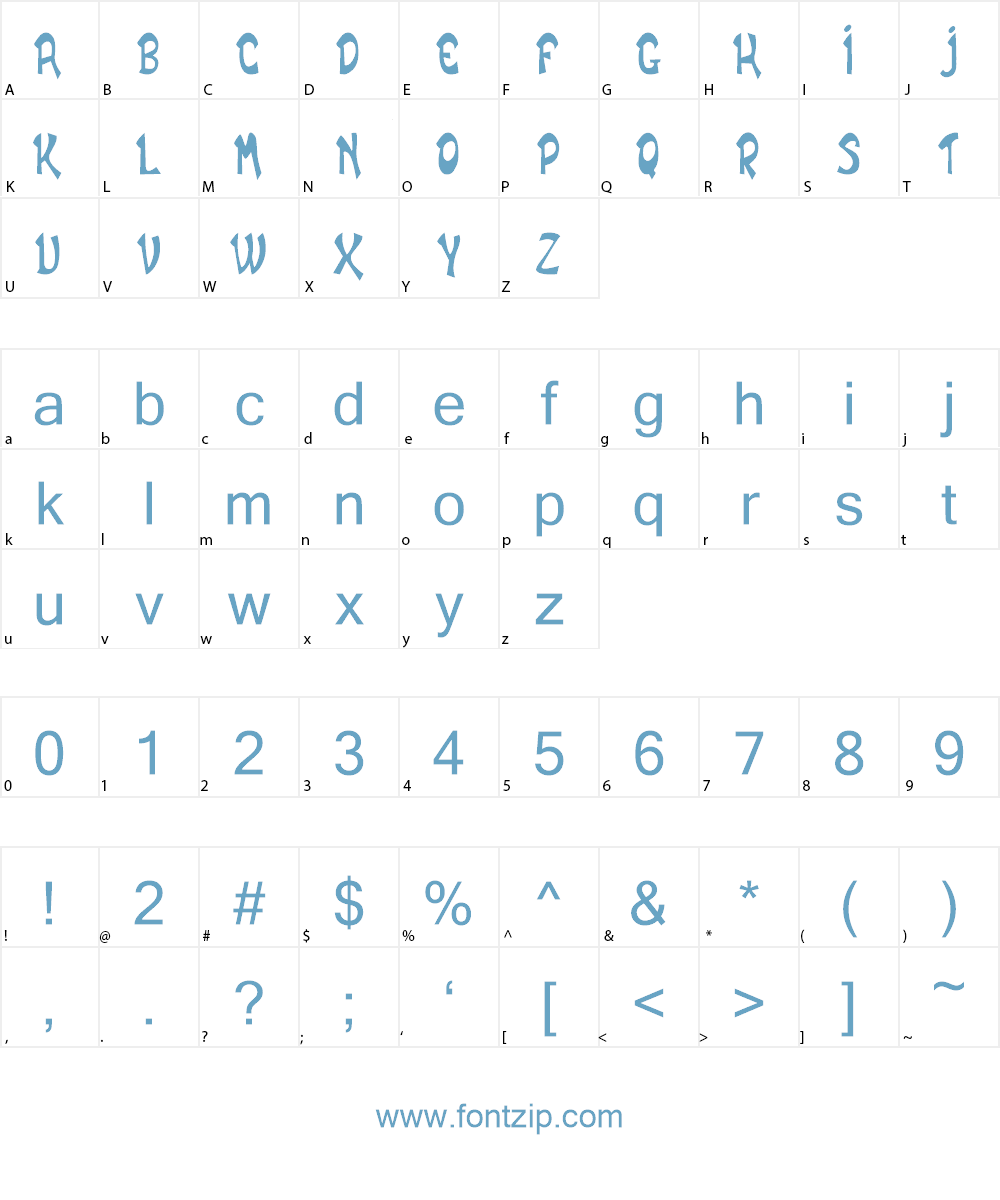
Daily is a family of fonts with a strong vintage impact...
It takes us back in time to the 50s, a decade of innovations and social changes, with a deeply emotional design, since it somehow belongs to everyone's history and it mostly evokes feelings of nostalgia. This period can be q a great source of inspiration...